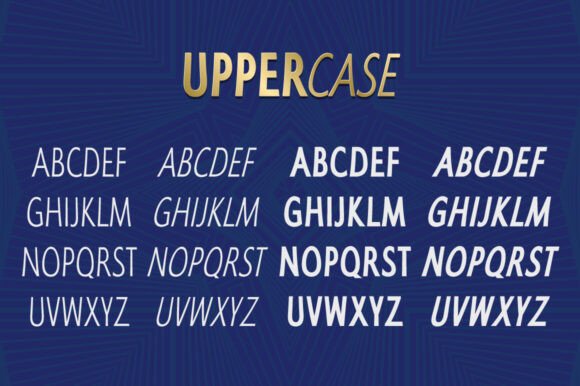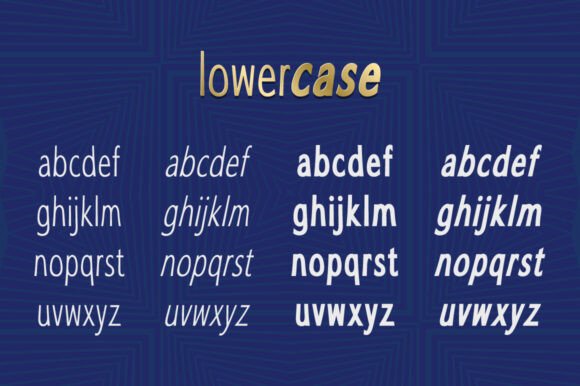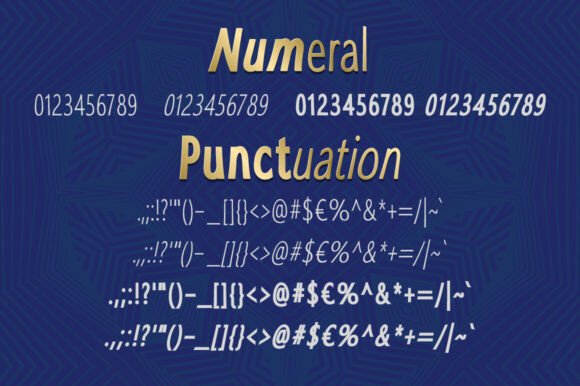
Introduction to Ovoid Shape Font
Have you ever stared at a blank canvas, trying to bring your creative project to life, only to be stuck on the perfect font? The moment when everything clicks, and your design takes shape, is exhilarating. For designers, the right font can be the key to unlocking a visually stunning and cohesive look. That’s where the Ovoid Shape Font comes in – a modern and versatile display typeface that’s about to revolutionize your creative endeavors.
Available in Regular, Italic, Bold, and Bold Italic styles, this high-quality font is perfect for branding, editorial headlines, packaging, and professional presentations. With its smooth ovoid structure, it balances geometric precision with humanist warmth, making it highly readable while visually distinctive. Whether you’re working on a free download project or a paid design, the Ovoid Shape Font is an invaluable design resource that will elevate your work to new heights.
Key Features of Ovoid Shape Font
- Unique, hand-drawn design with a modern aesthetic, perfect for creative projects.
- Perfect for designers looking for a distinctive, ovoid shape font to elevate their creative project.
Honest Review: Ovoid Shape Font
I recently had the chance to try out the Ovoid Shape Font, and I must say it’s been a game-changer for my creative projects. The high quality of this font is immediately apparent, with crisp and clean lines that make it perfect for any design.
One of the standout features of the Ovoid Shape Font is its versatility. It’s great for both digital and print design, and can be used for a wide range of creative projects, from logos to posters. The transparent background option also makes it easy to customize and integrate into your designs.
However, I do have to mention a few limitations: ⚠️ Limited character set, ⚠️ Not ideal for body text, and ⚠️ Some users may find it too futuristic for their taste.
Overall, I’m really impressed with the Ovoid Shape Font. It’s a valuable design resource that’s sure to elevate your creative projects. While it may have some limitations, its high quality and versatility make it well worth the download.
The Ovoid Shape Font is ideal for use in creative projects such as logos, posters, and infographics. Its unique shape and style make it perfect for adding a touch of personality to your designs. It’s also great for use in design resources such as templates and themes, where it can add a touch of creativity to your projects.